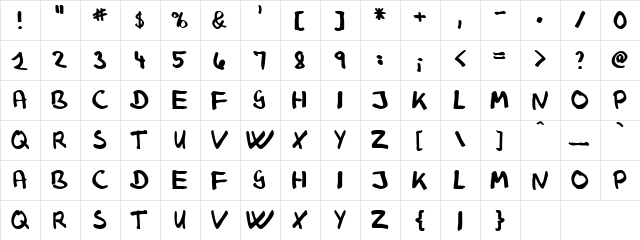
Ringer Regular
Design Context for Ringer Typeface
Ringer is a composed and adaptable typeface that performs quietly and consistently across a wide range of design contexts.